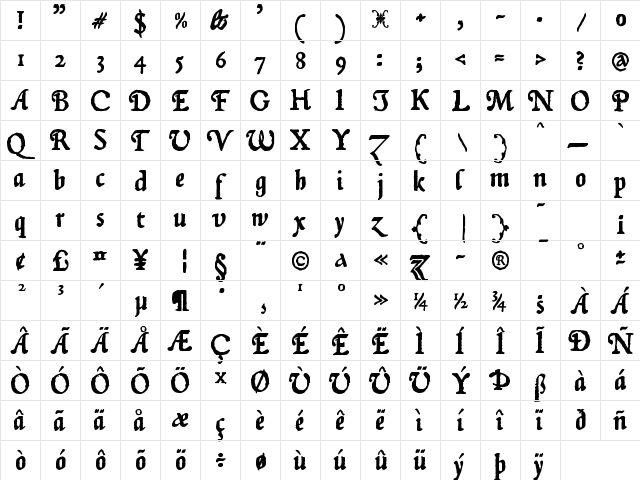
zai Januszowski Character 1594 Regular Font Preview
zai Januszowski Character 1594 Regular
zai Januszowski Character 1594 Regular Font Details
| Foundry | ZAI |
| Designer | Tomasz Skowroֳki |
Design Context for zai Januszowski Character 1594 Typeface
zai Januszowski Character 1594 takes a measured approach to typography — its balanced proportions and neutral character make it a reliable workhorse for both digital and print work.